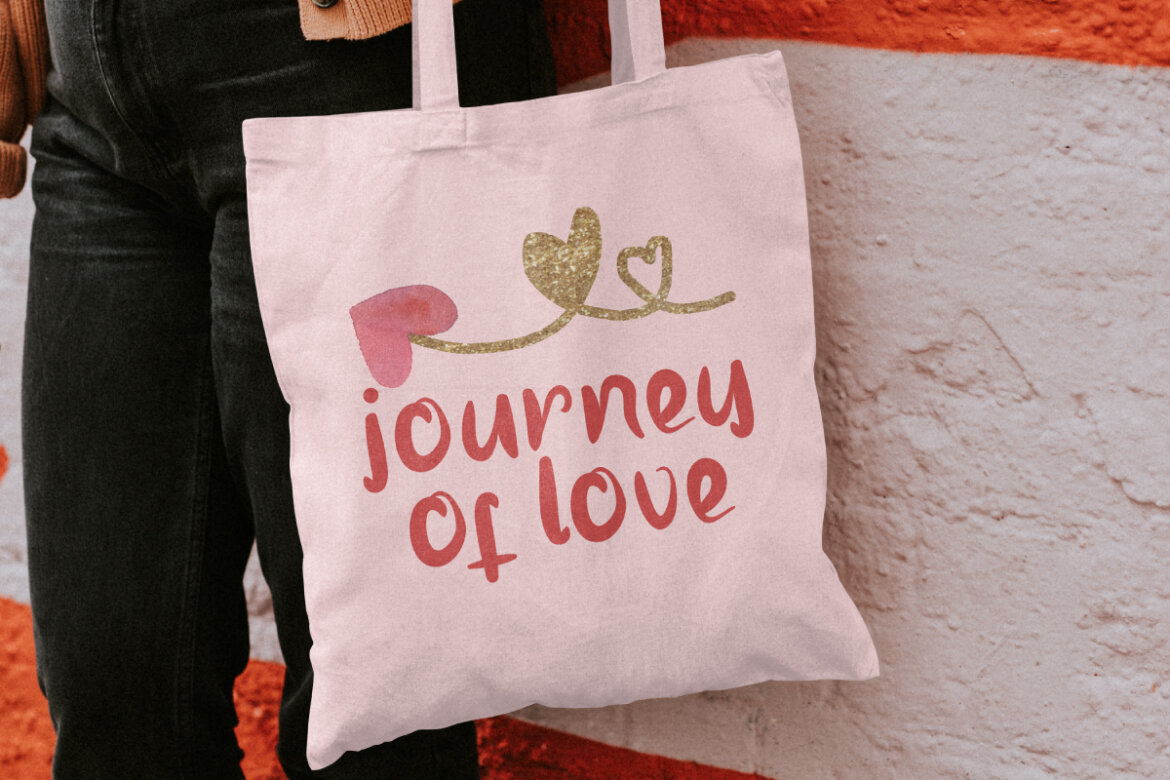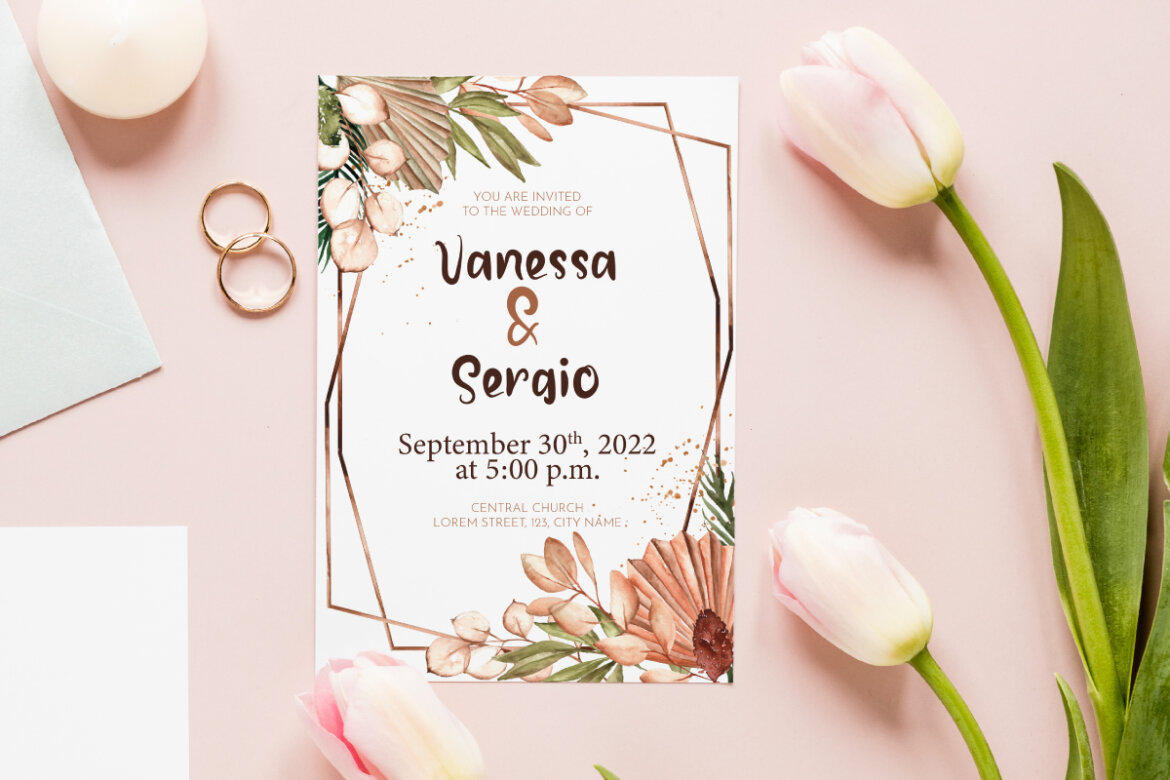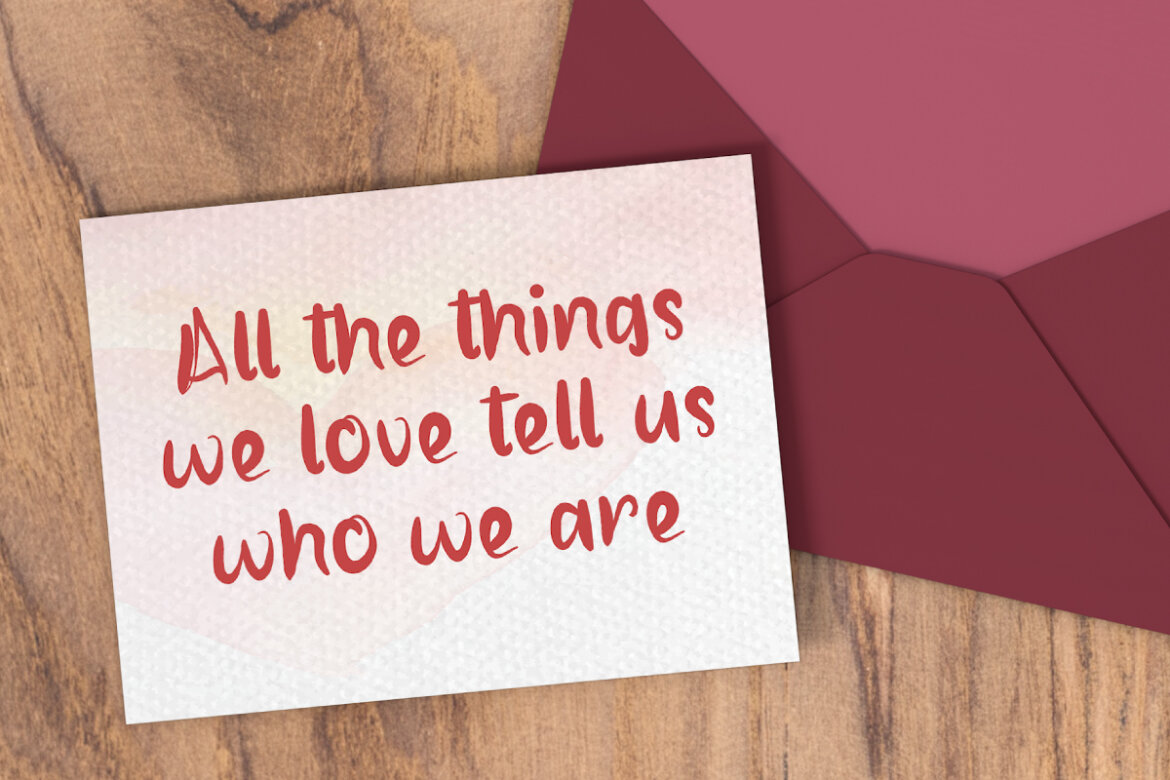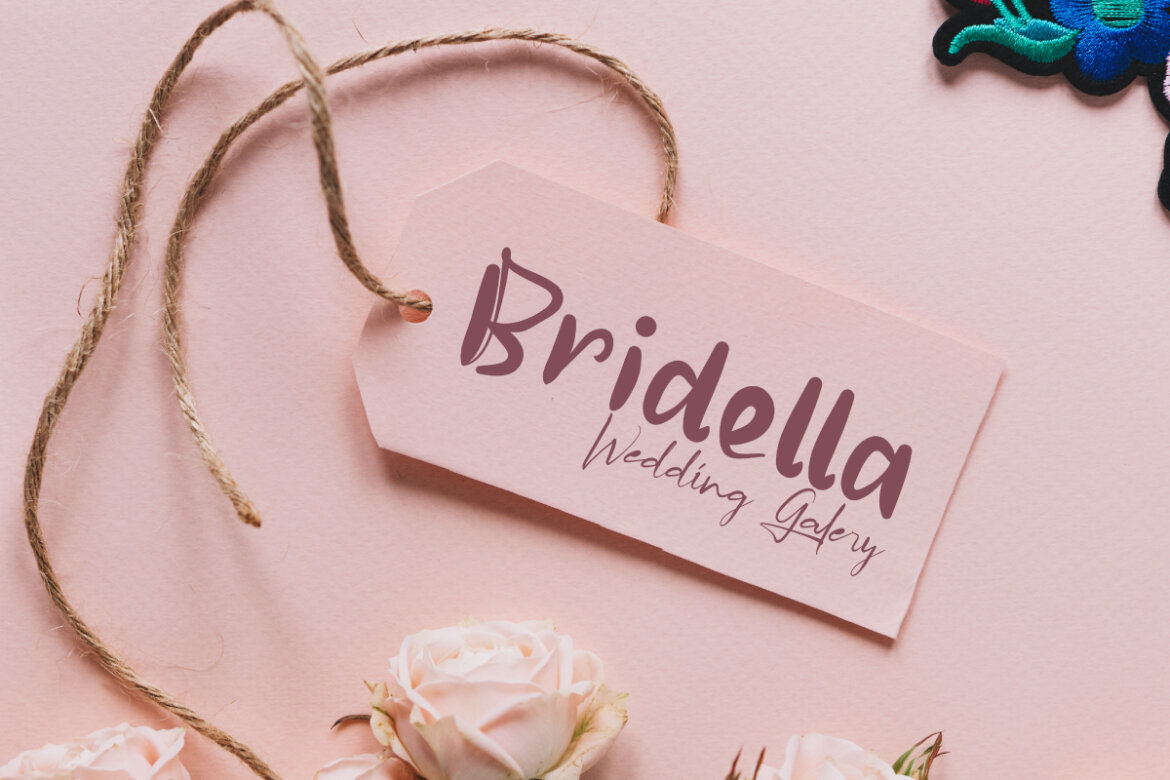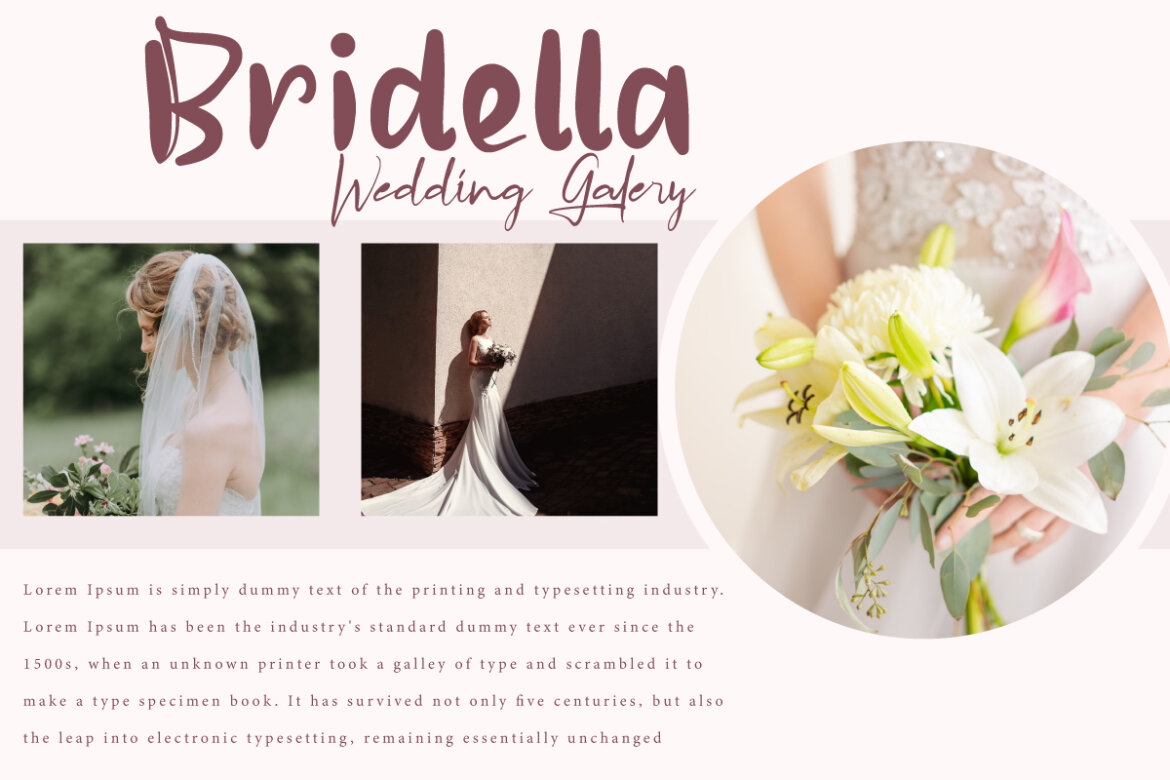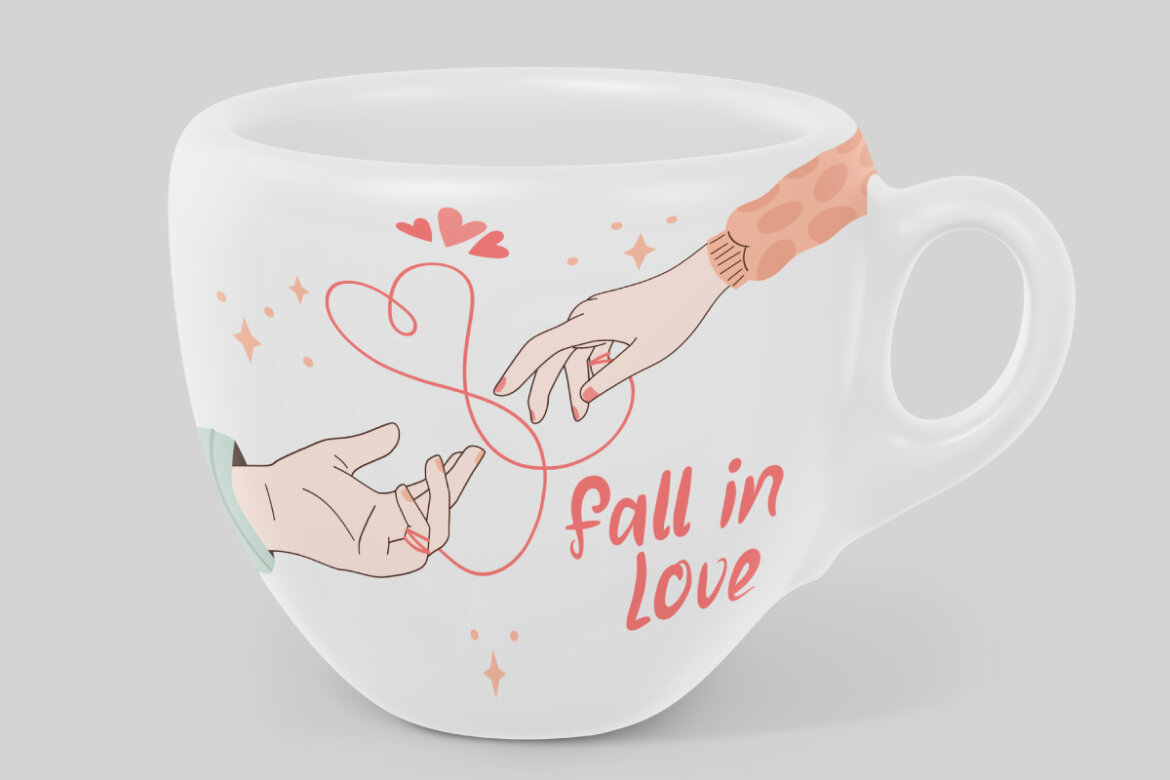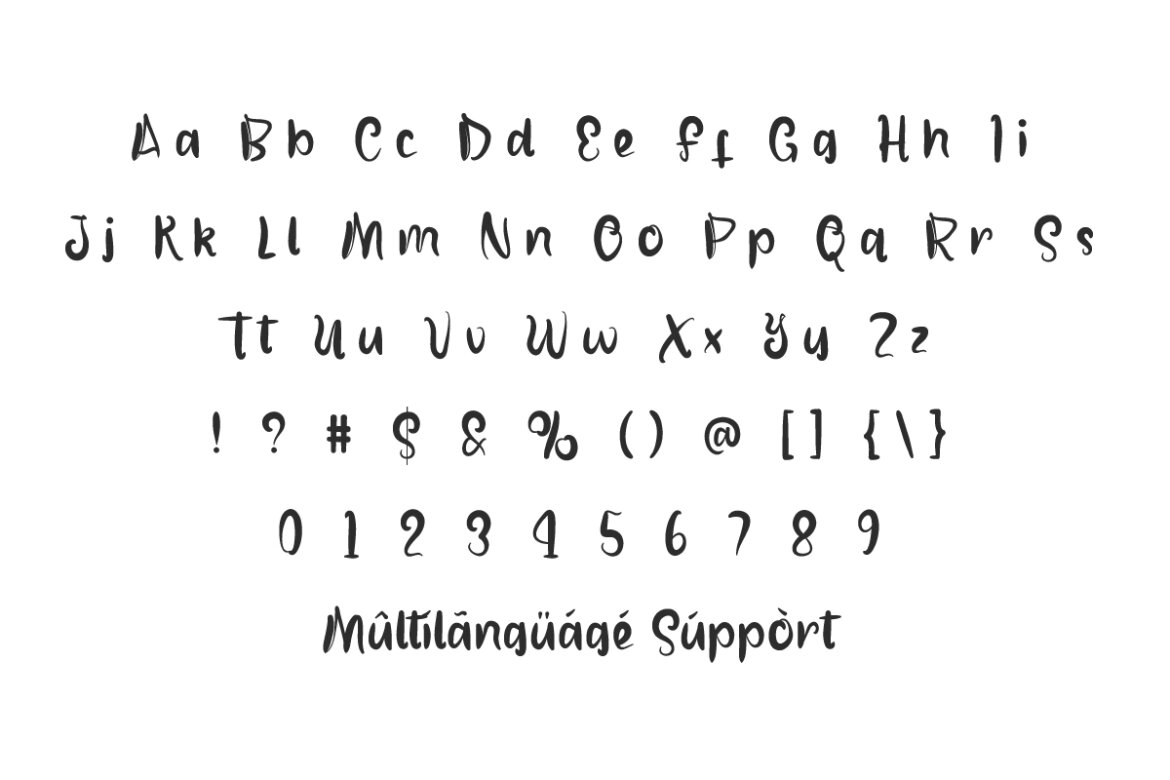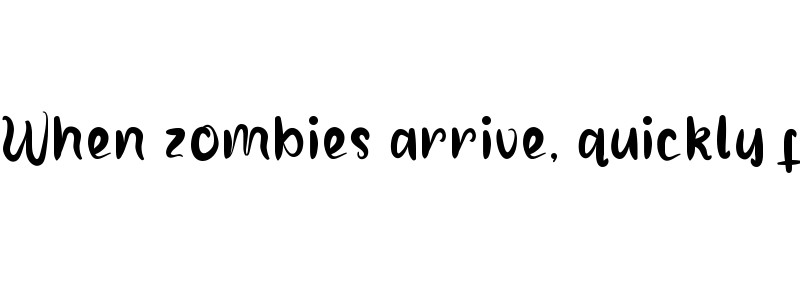
Perjalanan Cinta FREE Font
Perjalanan Cinta Font is handwriting with a handmade casual touch. This will help you improve any creative designs you need, such as blogs, branding logo, brochure, card designs, custom mug, header, labels, magazine cover, print on fabrics, product packaging, quotes, stationery, sticker, template mockup, titles, watermarks, website, or wedding invitations, and so much more.
Perjalanan Cinta Font includes a complete set of Basic Uppercase and Lowercase Characters, Numbers, Punctuation Marks and Symbols. This is a handwritten lettering made with a brush with a radiance of love that will captivate you. among other things ads, apparel, author, boutique, cafeteria, cosmetic, earthenware, event organizer, florist, graphic design, handicraft, marriage event, skincare, spa salon, etc.